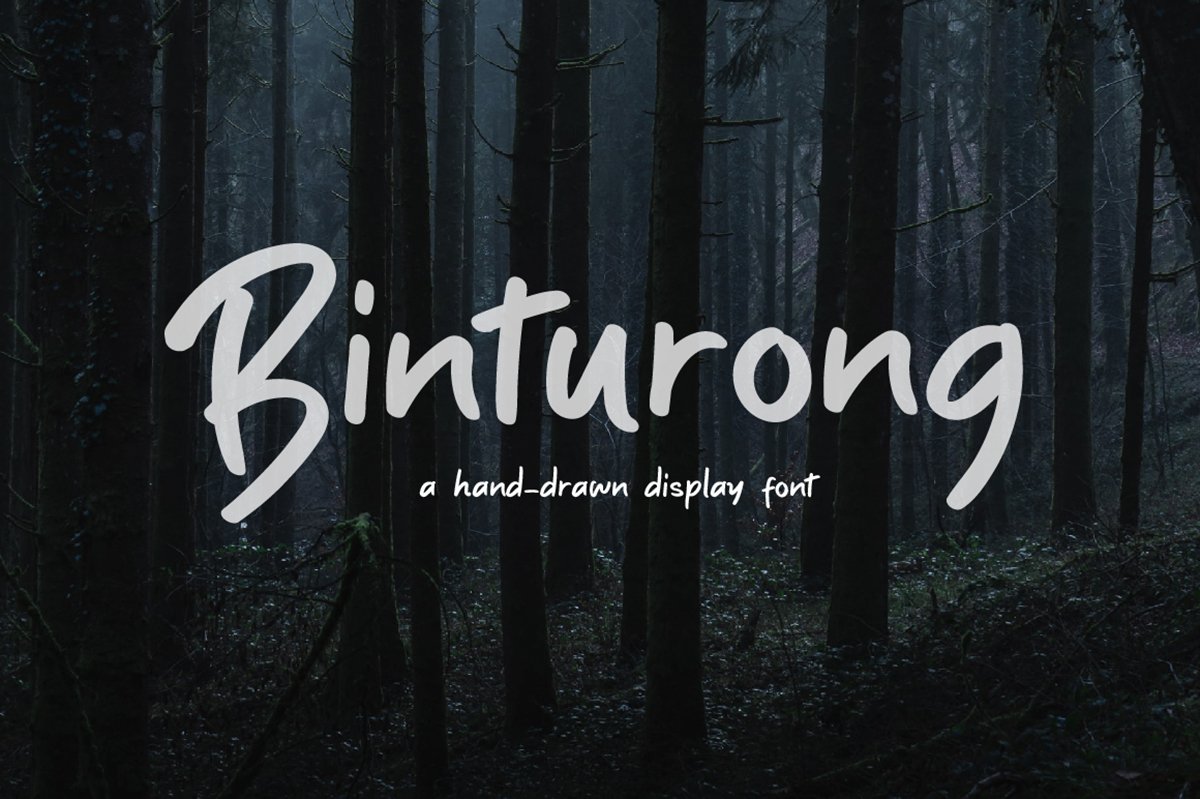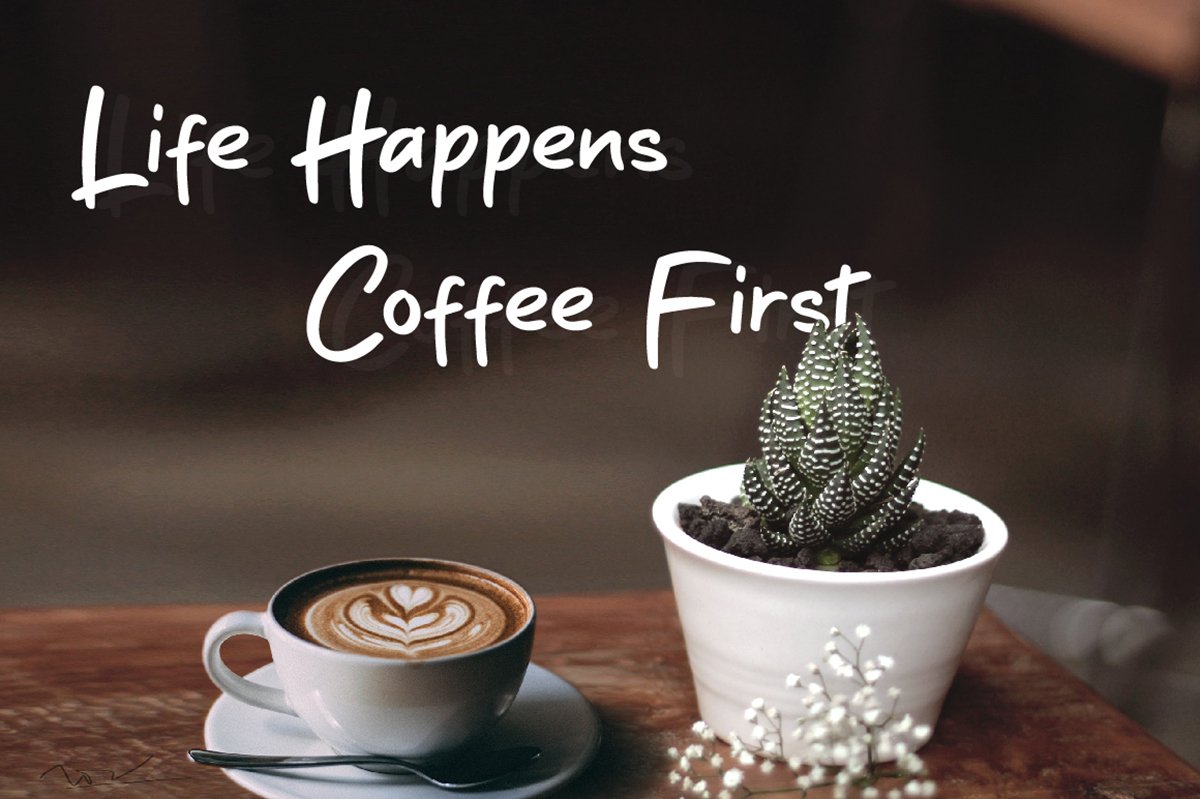
Binturong Display Font is a simple and playful script font. The font offers you a touch of natural look with its marker-like characters. No matter the topic, this font will be an incredible asset to your fonts’ library, as it has the potential to elevate any creation.
Binturong